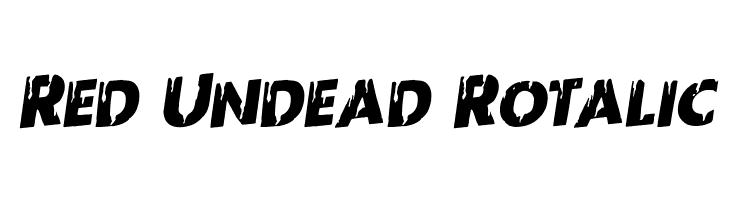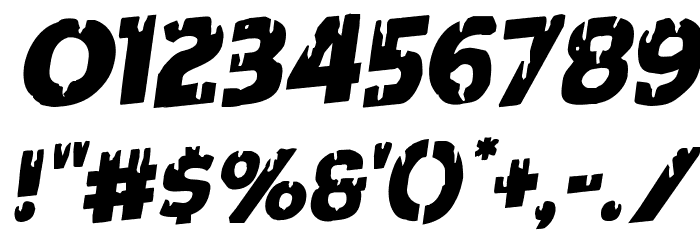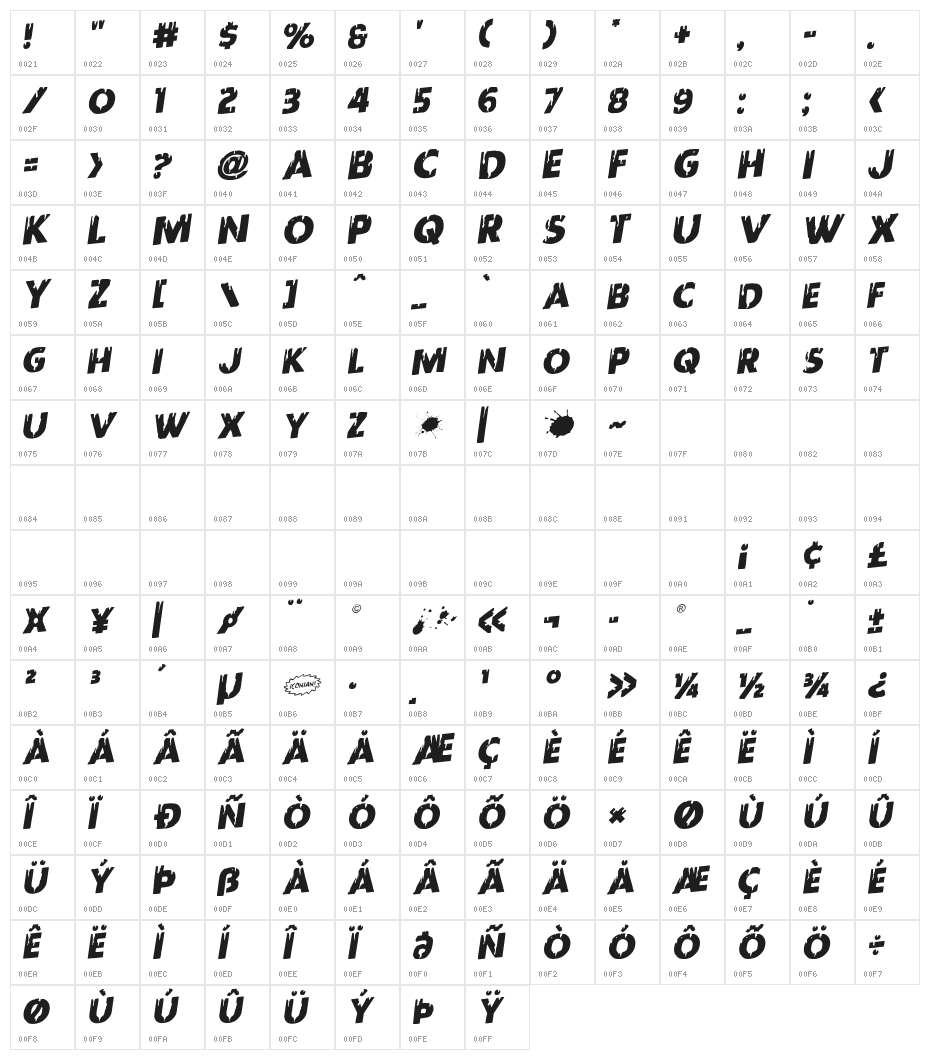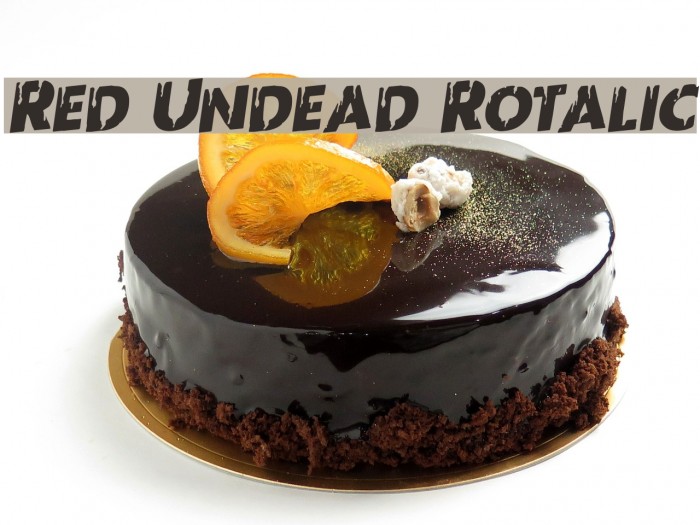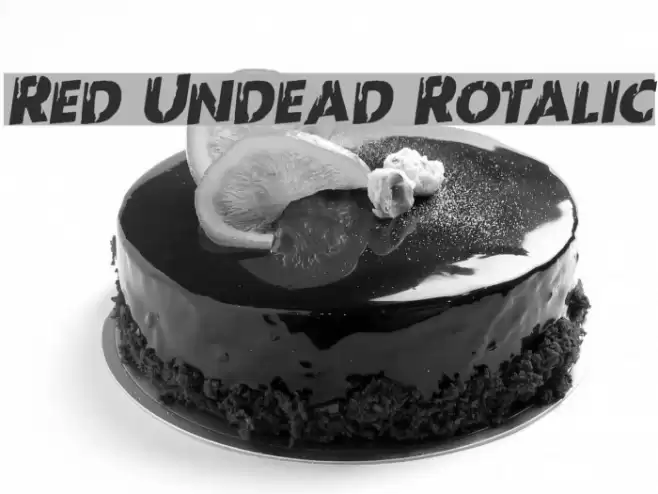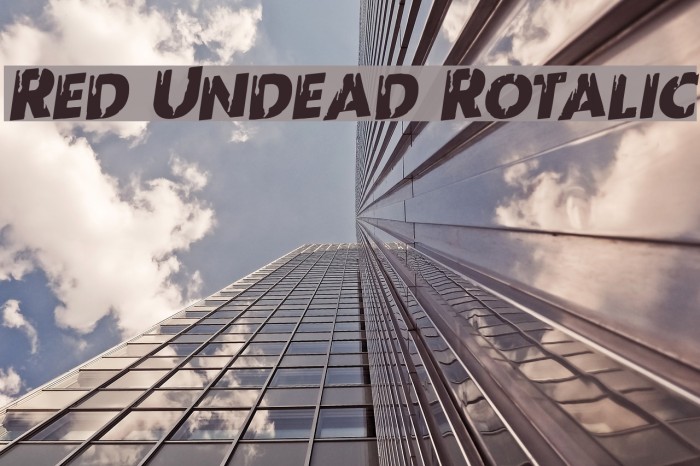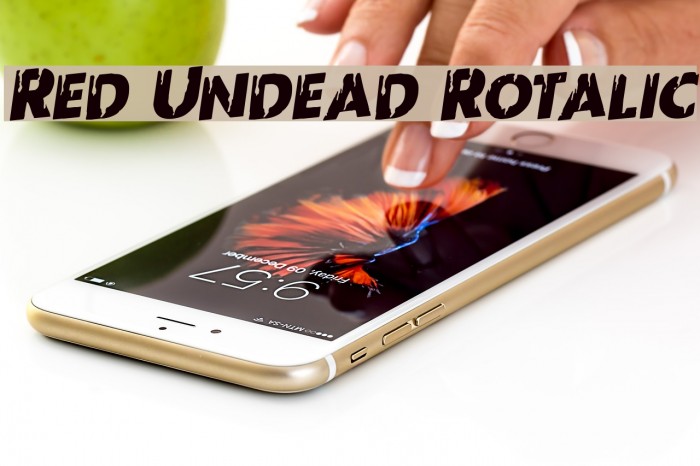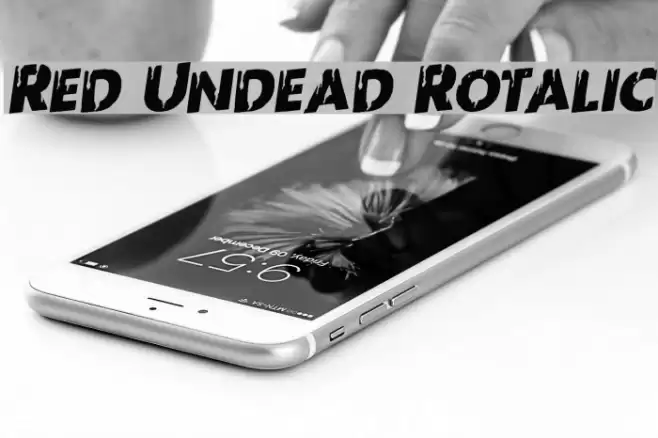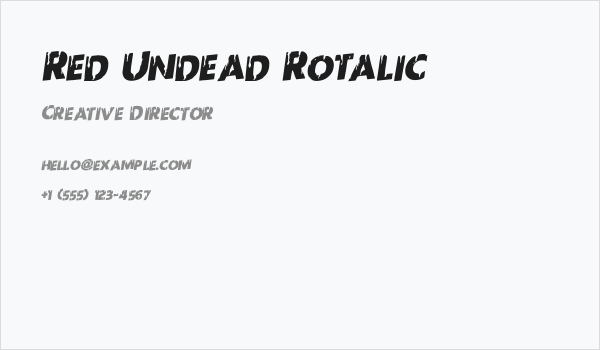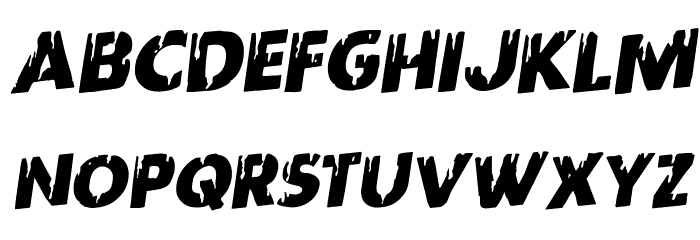
Red Undead Rotalic Font
Red Undead Rotalic Description
This font features a bold and dynamic style with a distressed, grunge-like appearance. Each character is slightly slanted, adding a sense of movement and energy. The strokes are thick and uneven, creating a rugged texture that gives the font a rebellious and edgy feel. The uppercase and lowercase letters maintain a consistent style, while the numerals and special characters complement the overall aesthetic. This font is ideal for projects that require a bold statement or a touch of urban flair.
| Overall Style | Modern, Edgy |
| Proposed Projects | Ideal for posters, album covers, video game graphics, and edgy branding projects. |